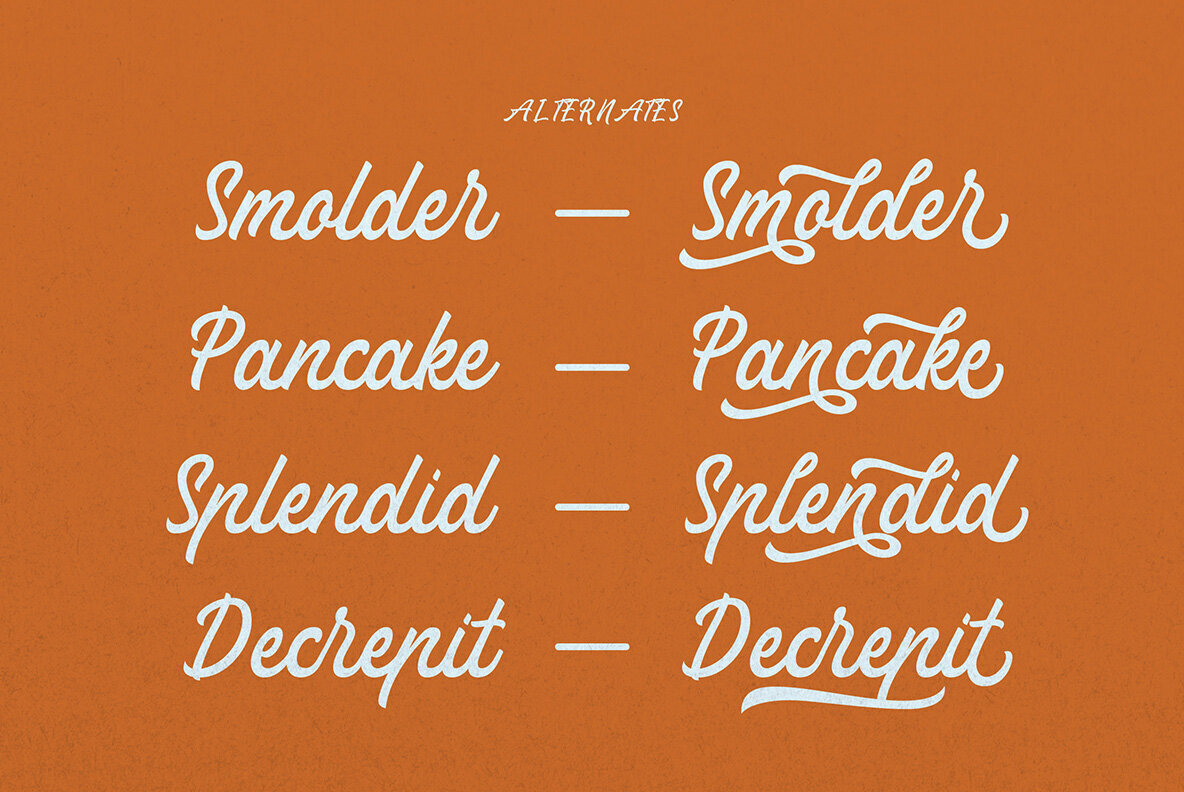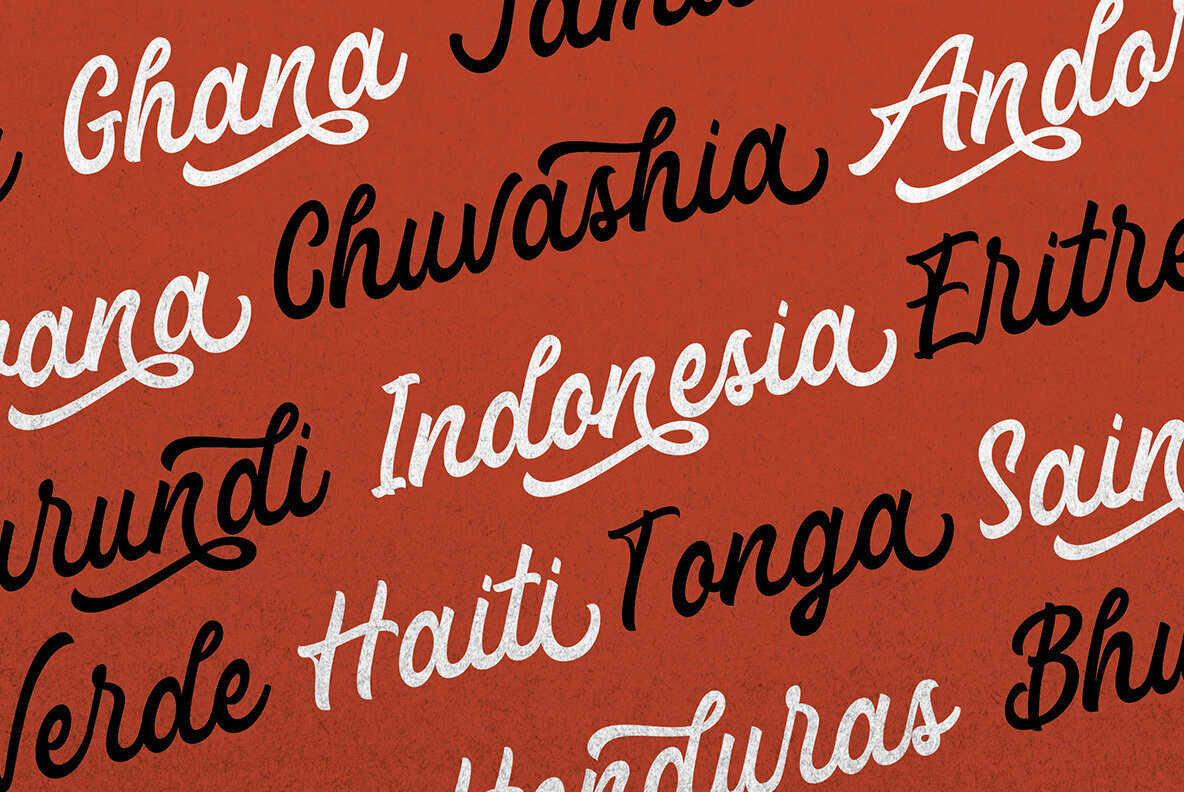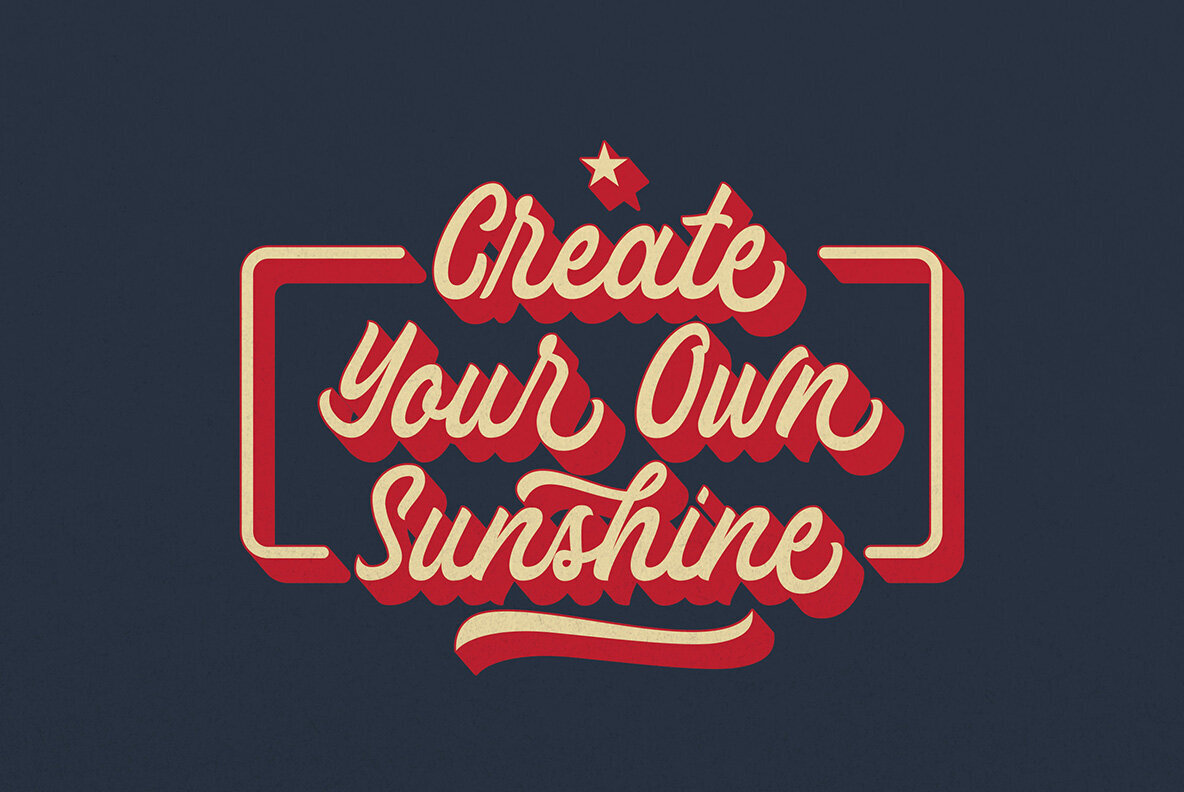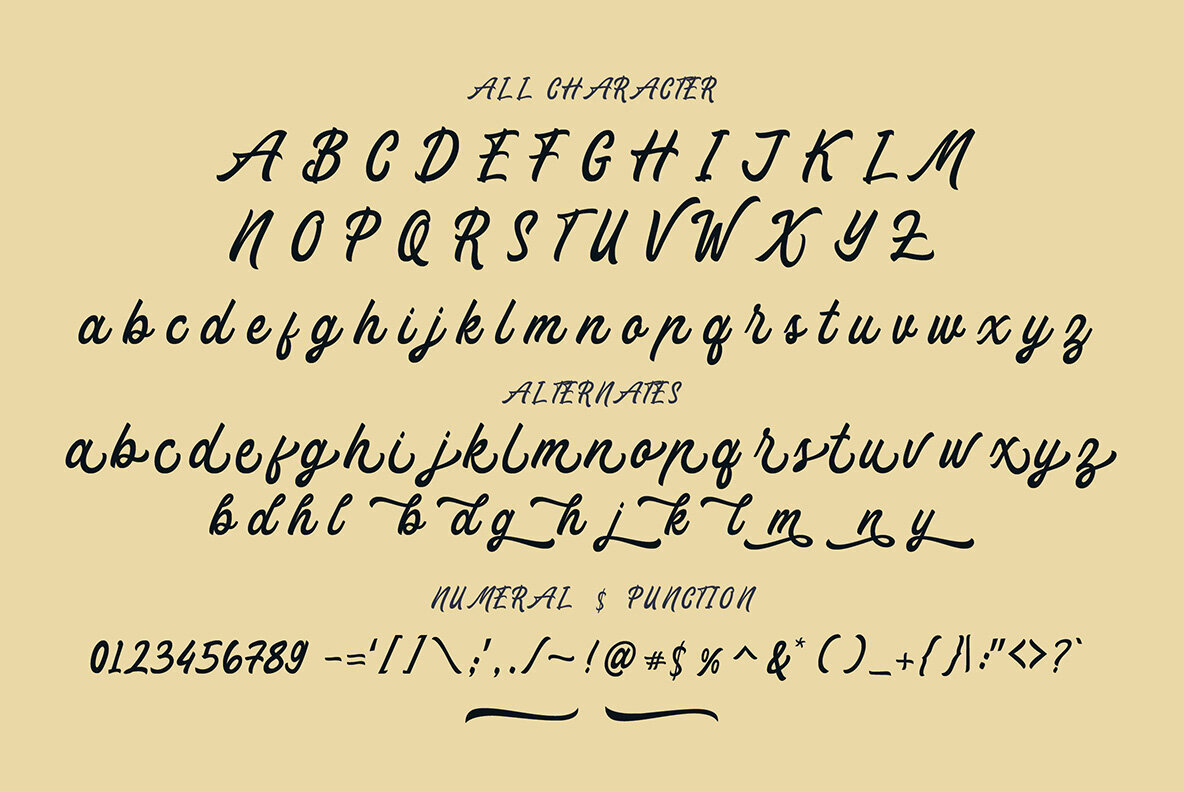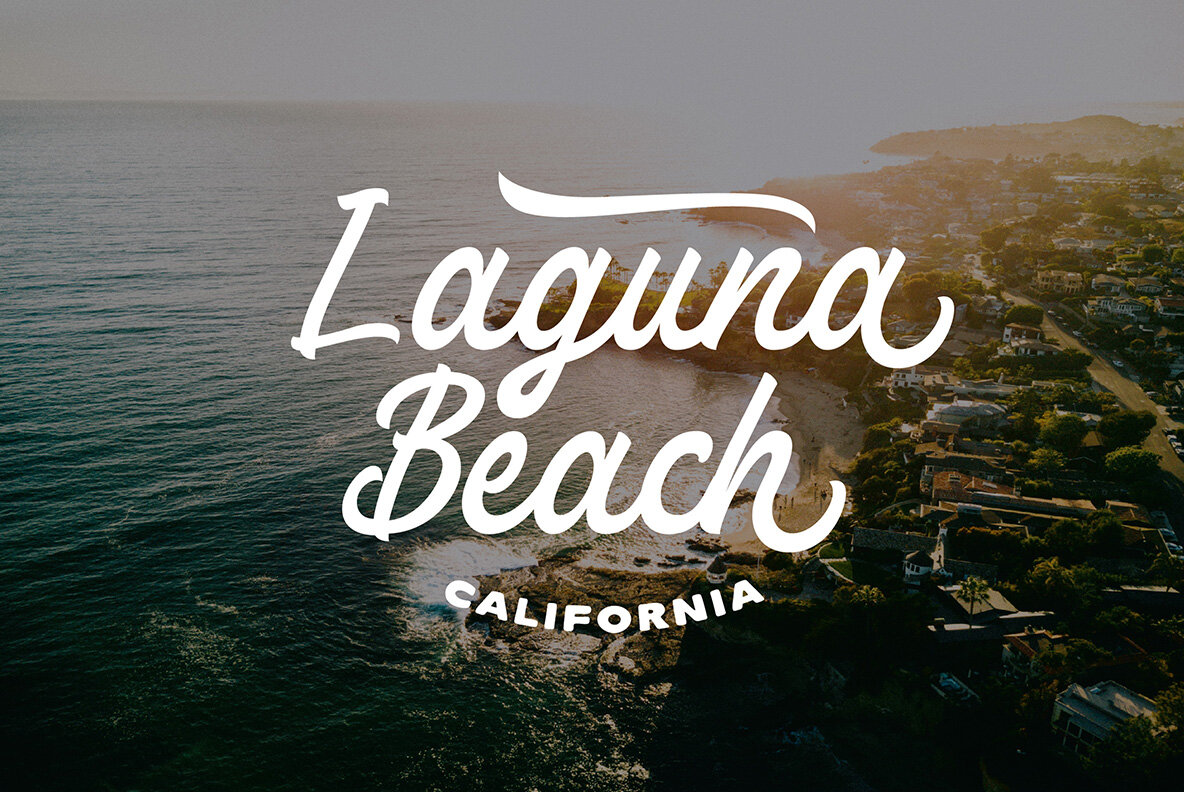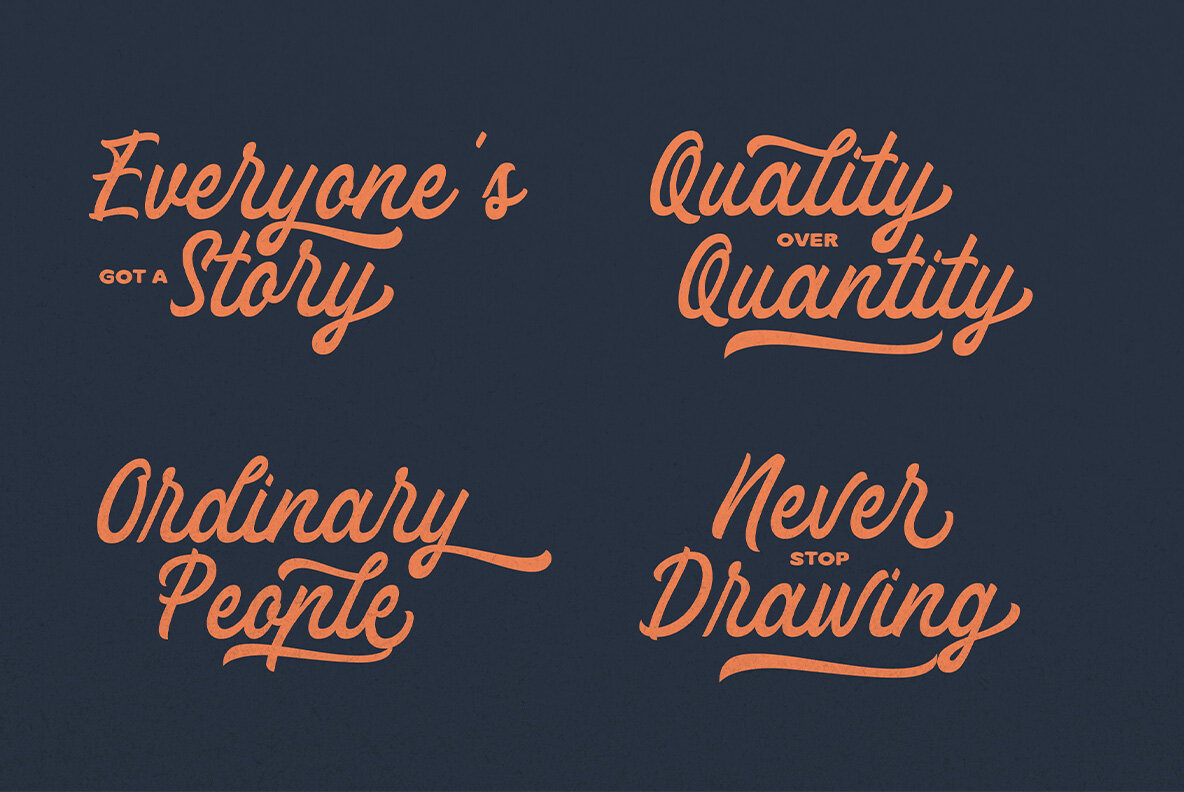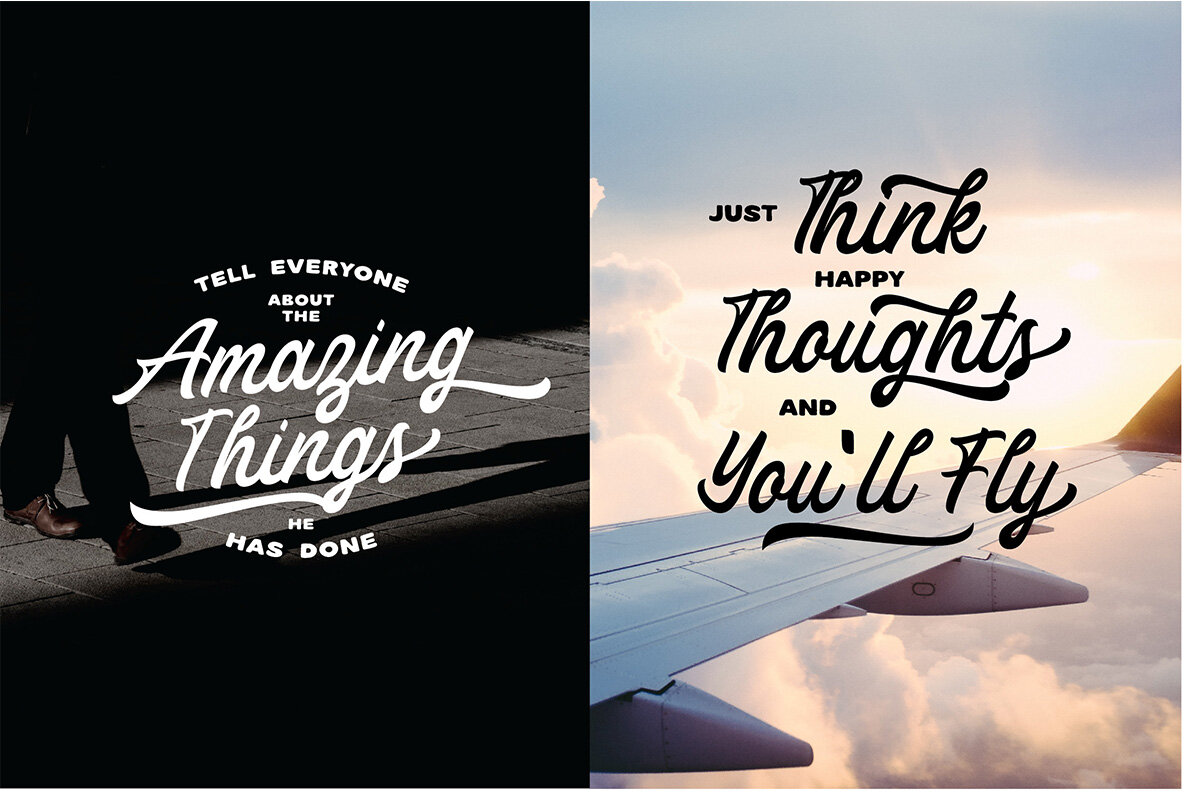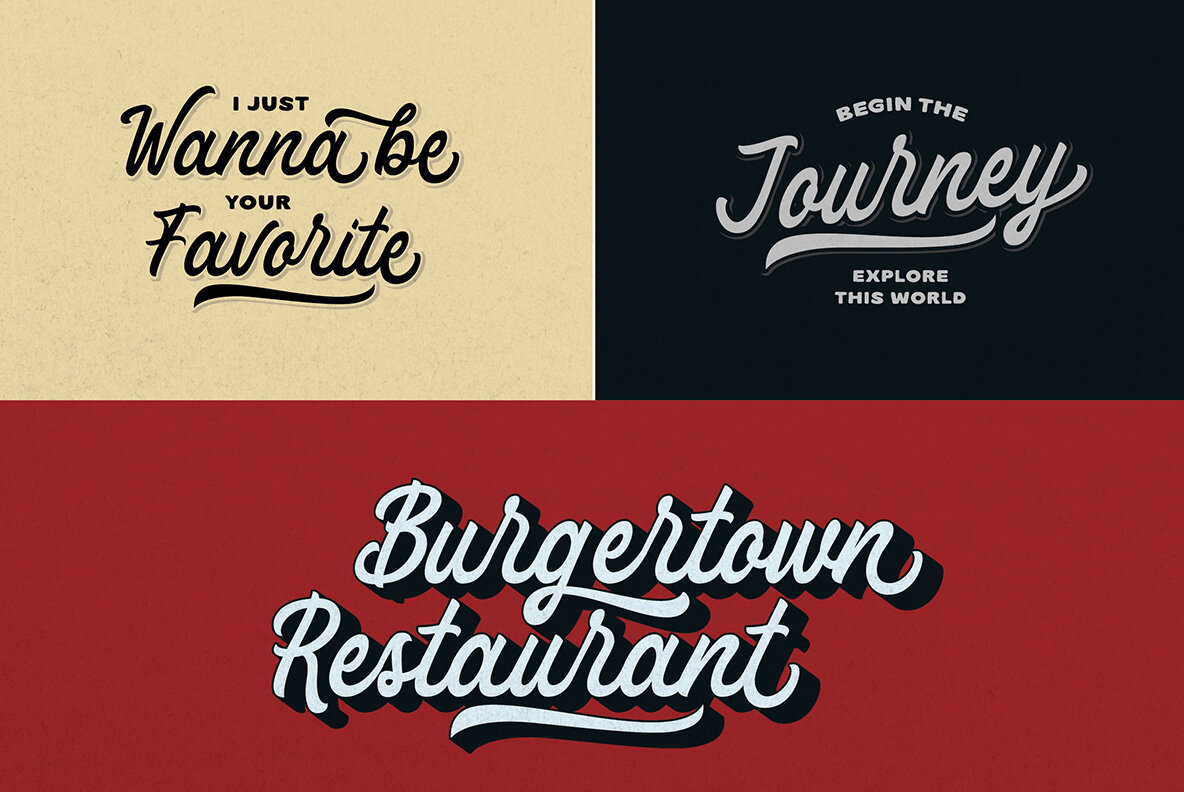
Estudiar Font
Estudiar Regular
Estudiar Script is a handwritten font that's perfect for any project where you need to add some character. The uppercase letters are stylish and bold, while lowercase ones have an elegant touch.